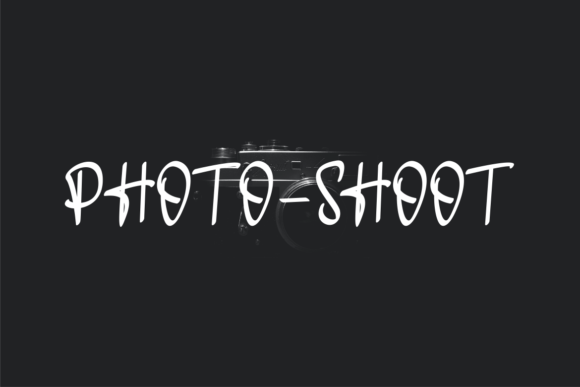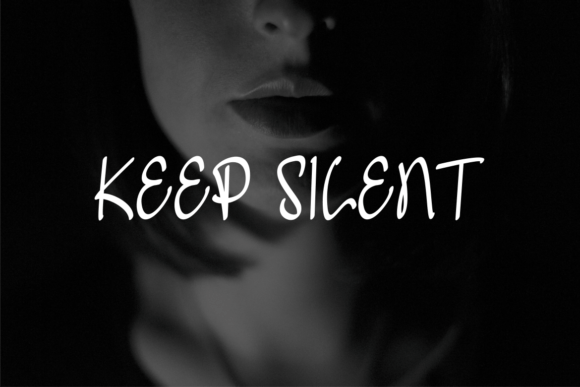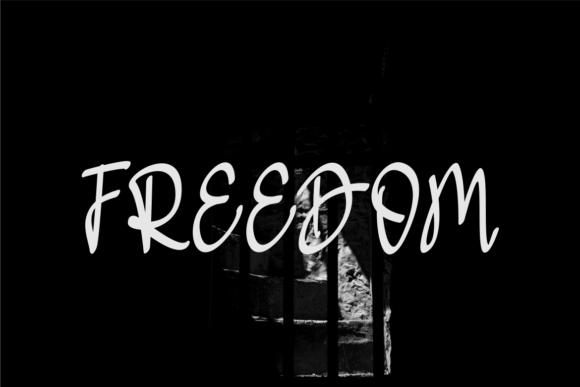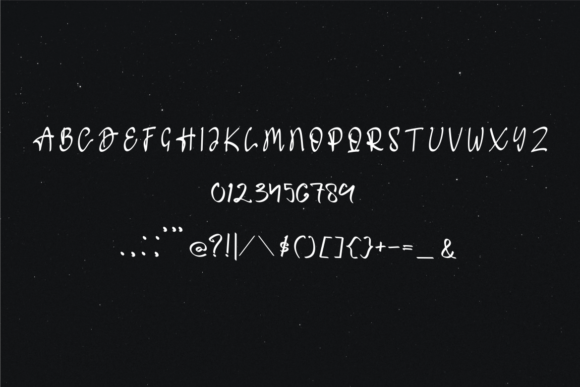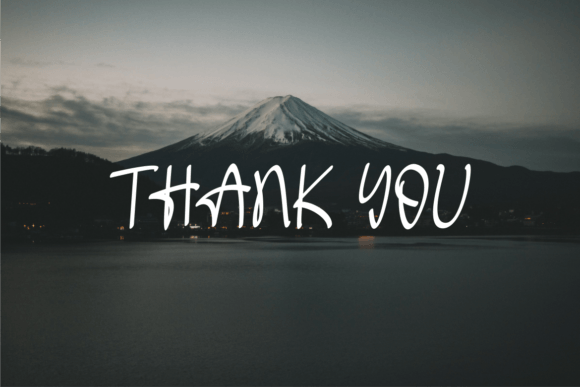
Introduction to Porasitho Font
Have you ever stared at a blank page, feeling the pressure to create something truly unique and captivating? It’s that moment when the perfect font can make all the difference. For designers, finding the right font can be a game-changer, elevating a project from bland to grand.
Enter the Porasitho Font, a cool and modern handwritten script font that’s about to become your new go-to design resource. With its high-quality aesthetic and transparent background, this font is perfect for any creative project that demands a touch of sophistication.
Whether you’re working on a personal or professional project, the Porasitho Font offers a free download option that’s sure to impress. Its versatility makes it an ideal choice for designers seeking a reliable font that can adapt to any style or theme.
Key Features of Porasitho Font
- High-quality, free download font suitable for various creative projects, including graphic design, digital art, and more.
- Transparent background, allowing for seamless integration into any design, whether it’s a logo, poster, or digital wallpaper.
- Unique, handcrafted design elements, making it an ideal design resource for those seeking a distinctive look.
- Perfect for use in various design contexts, including branding, advertising, and editorial content.
Honest Review: Porasitho Font
I recently stumbled upon the Porasitho Font and was immediately drawn to its unique aesthetic. As a designer, I’m always on the lookout for high-quality, versatile fonts that can elevate my creative projects. The Porasitho Font delivers on both fronts, offering a range of styles that can be used for everything from titles to body text.
One of the standout features of the Porasitho Font is its transparent background, making it easy to layer over other design elements. This is particularly useful for designers who need to create complex, multi-layered compositions. The font also comes with a free download, which is a major plus for those on a budget.
Here are some of the things that work well with the Porasitho Font:
- ✨ Versatile styles that can be used for a variety of design projects
- ✨ High-quality design that looks great at both large and small sizes
- ✨ Transparent background makes it easy to layer over other design elements
However, there are a few limitations to be aware of:
- ⚠️ Limited character set, which may not be suitable for longer blocks of text
- ⚠️ May not be as effective for body text, where readability is key
Overall, I’m impressed with the Porasitho Font and would recommend it to designers looking for a unique, high-quality design resource for their creative projects.
The Porasitho Font is suitable for a variety of creative projects, including branding, marketing materials, and digital designs. Its high quality and free download make it an excellent design resource for designers of all levels.